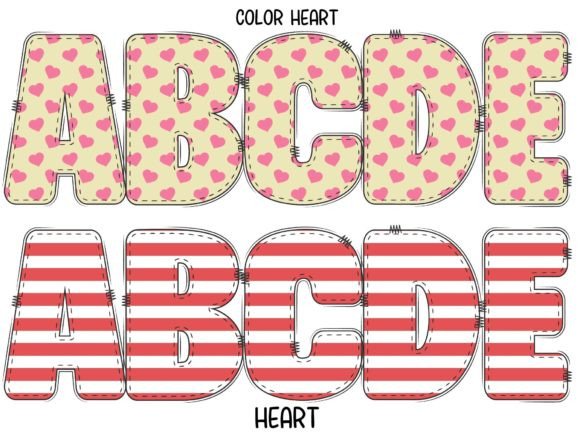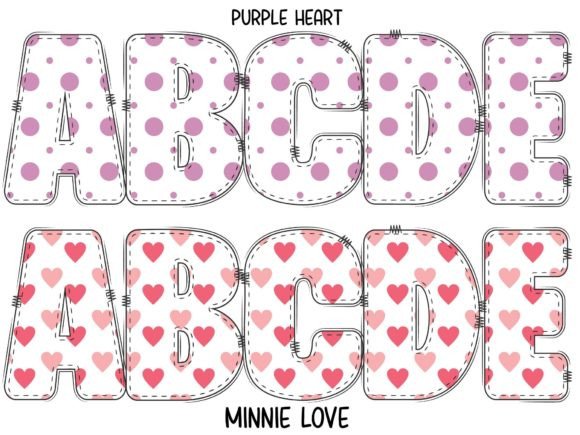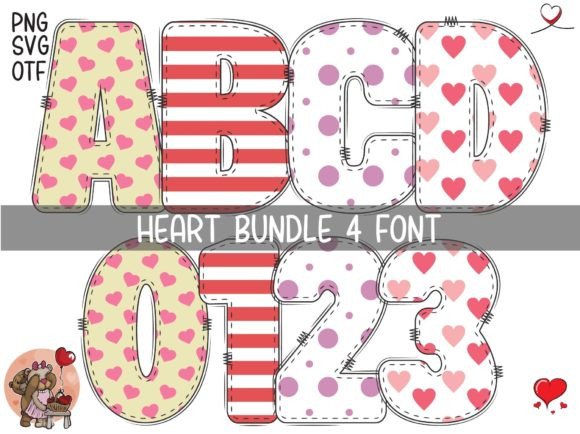
Heart Font: The Sweetest Way to Express Your Love on Valentine’s Day
Are you looking for a font that can add a touch of love and sweetness to your Valentine’s Day projects? Look no further than the Heart Font! This lovely and sweet color font is perfect for designers and crafters who want to create adorable and charming designs that capture the spirit of the holiday.
The Charm of Heart Font
Heart Font is a unique and eye-catching font that is sure to make your designs stand out. Its adorable charm and cute decorative elements are perfect for all your Valentine’s Day projects, from greeting cards and invitations to social media graphics and blog posts. Whether you’re a designer, crafter, or DIY enthusiast, Heart Font is the perfect way to add a touch of love and sweetness to your creations.
Perfect for Valentine’s Day Projects
Valentine’s Day is just around the corner, and what better way to celebrate than with a font that’s specifically designed for the occasion? Heart Font is perfect for creating:
- Valentine’s Day greeting cards and invitations
- Blog posts and articles about love and relationships
- Craft projects, such as handmade cards and gift tags
- DIY decorations, such as garlands and banners
Key Features of Heart Font
So, what makes Heart Font so special? Here are just a few of its key features:
- Adorable charm: Heart Font has a unique and charming design that’s sure to capture the hearts of your audience.
- Cute decorative elements: The font includes a range of cute decorative elements, such as hearts, flowers, and other love-themed designs.
- Color font: Heart Font is a color font, which means you can use it to add a pop of color to your designs.
Tips for Using Heart Font
Here are a few tips for using Heart Font in your designs:
- Pair it with other fonts: Heart Font looks great when paired with other fonts, such as sans serif fonts or script fonts.
- Use it sparingly: Because Heart Font is a decorative font, it’s best to use it sparingly to avoid overwhelming your design.
- Experiment with colors: Heart Font comes in a range of colors, so don’t be afraid to experiment and find the perfect color for your design.